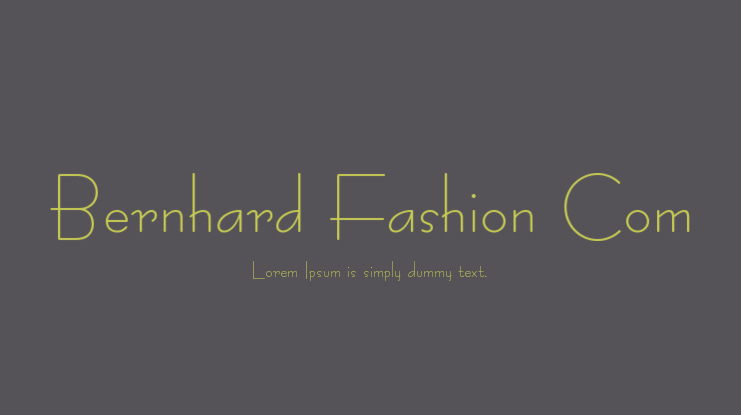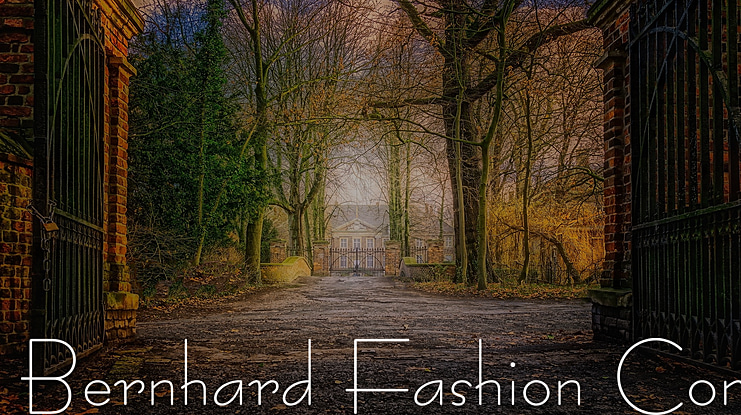
Lucian Bernhard
The German-born designer Lucian Bernhard designed Bernhard Fashion in 1929.
An "American" typeface, Bernhard's original design was created for the American Type Founders (ATF).
It bespeaks the spirit of the roaring 20s.
The hairline-thin letters exhibit elongated ascenders (but not descenders), and many stylized elements.
The capital letters also all descend visibly below the baseline.
In text, the extra large capitals seem almost like drop caps. This typeface is best used sparingly in text.
Largely set headlines will allow readers to enjoy the fashionable quality of Bernhard Fashion's design.